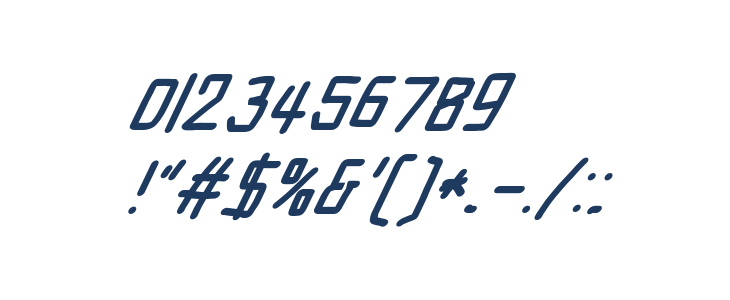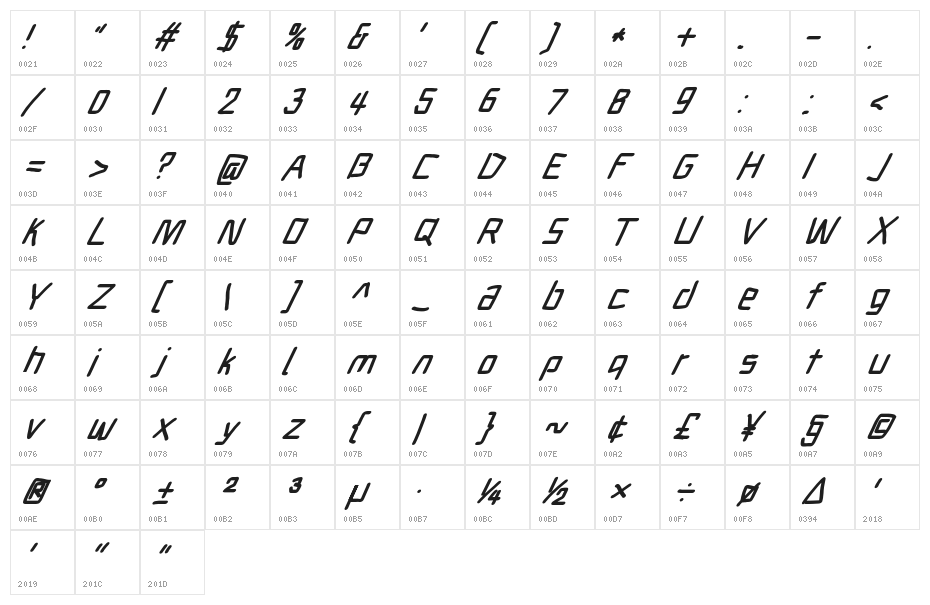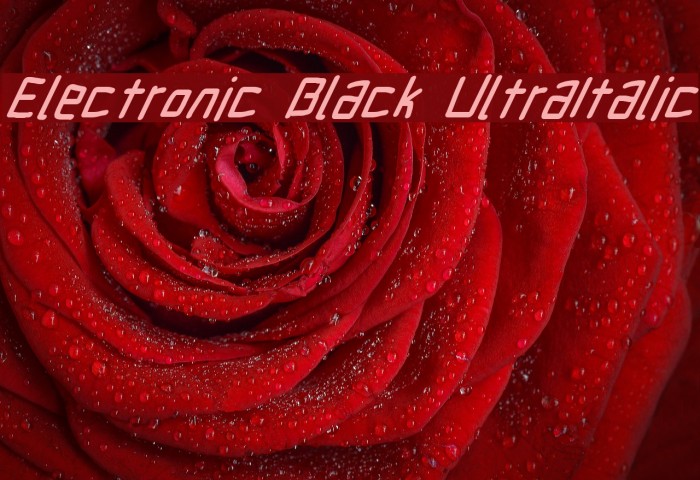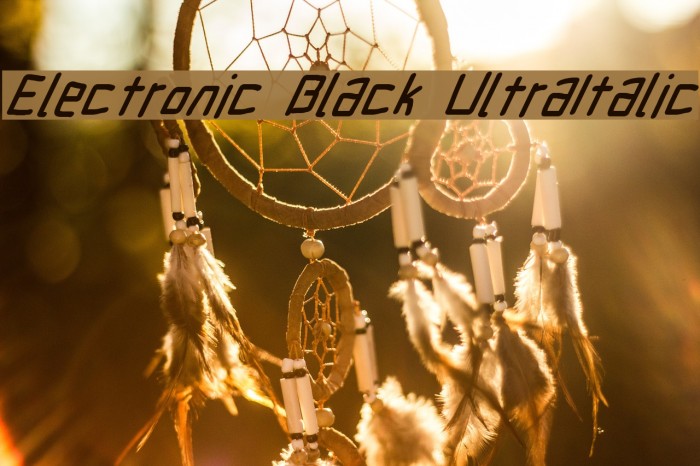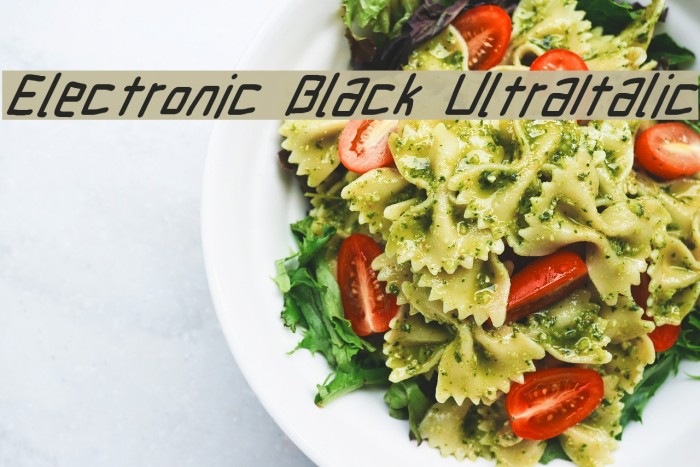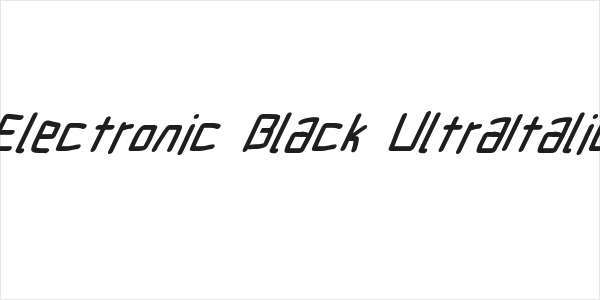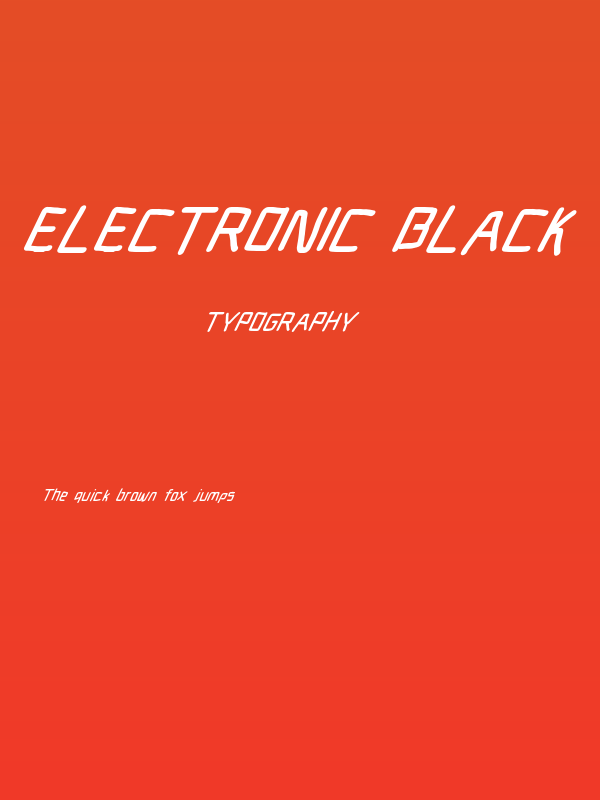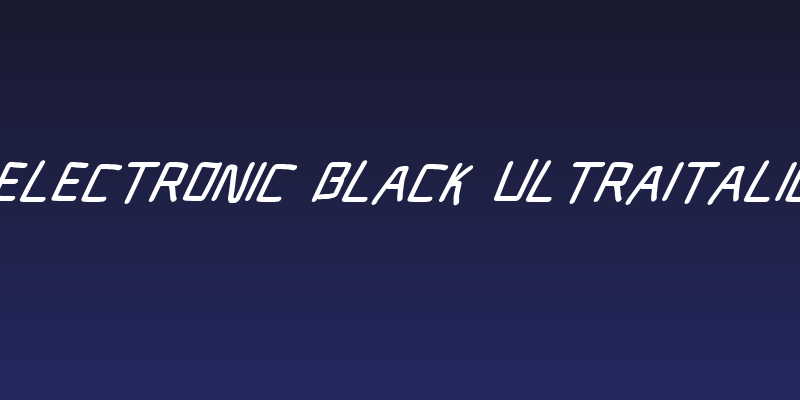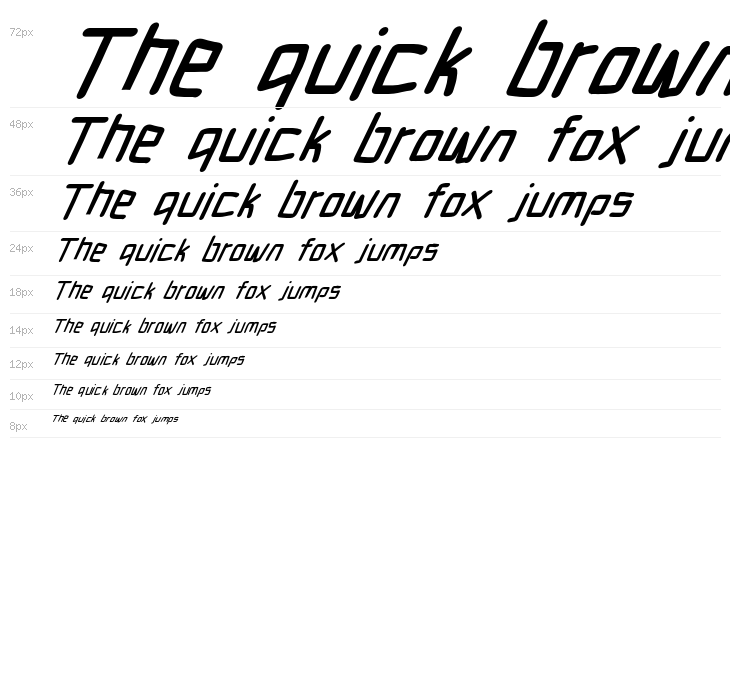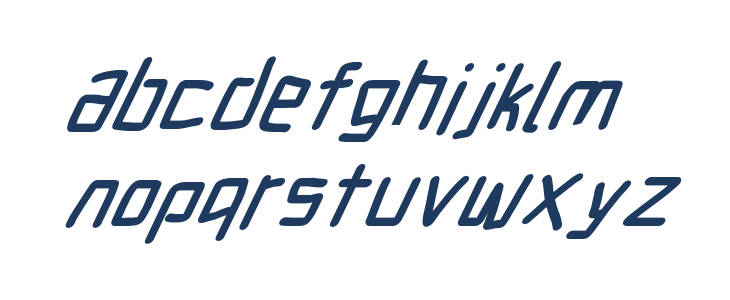
Electronic Black UltraItalic Font
Electronic Black UltraItalic Description
This font features a dynamic and futuristic style with a strong emphasis on angular lines and a slanted, italicized form. The characters are bold and exhibit a consistent stroke width, giving them a robust and impactful appearance. The uppercase and lowercase letters maintain a cohesive design, with sharp edges and a slight forward tilt that enhances the sense of motion. The numerals and special characters follow the same design principles, ensuring uniformity across all elements. This font's unique style makes it suitable for projects that require a modern and edgy aesthetic.
| Proposed Projects | Ideal for technology branding, sci-fi themed designs, video game titles, and modern advertising campaigns. |